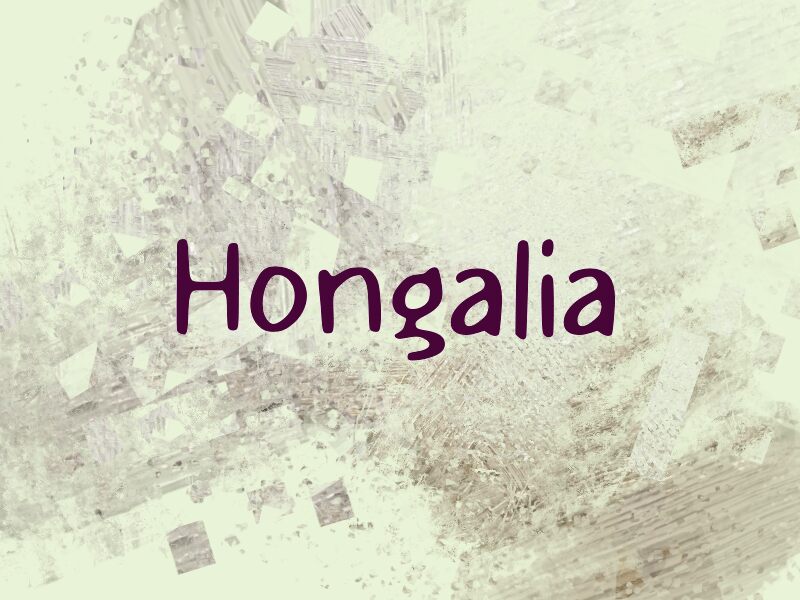
Hongalia
Hongalia font by wep is a display typeface that blends comic and script styles for playful yet organized visuals. The slightly curved glyphs and casual edge give it an approachable mood while still maintaining balance between the sense of modernity and friendliness. Such impressions are further enhanced by the round ends, soft angles, gentle stems, and lighter strokes.